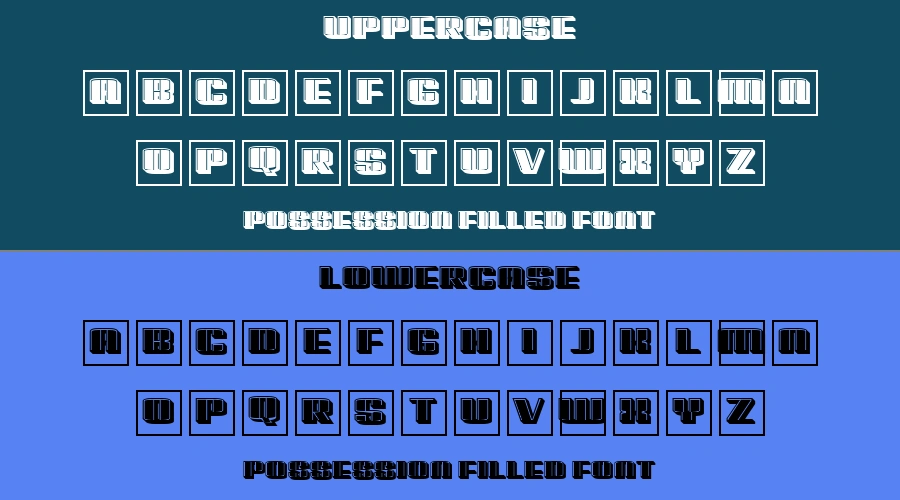
About Possession Filled Font
Designed with precision, Possession Filled Font merges clean lines with signature style in every character. This versatility makes it particularly effective for wine labels, where precision and design innovation directly impact communication quality. Each letterform demonstrates meticulous craftsmanship.
Technical excellence shines through elements like commanding presence and oldstyle figures, enhancing typographic versatility. In literary pages settings, Possession Filled Font proves its worth through superior multi-language support. The thoughtful execution of character width and cultural references ensures professional results.